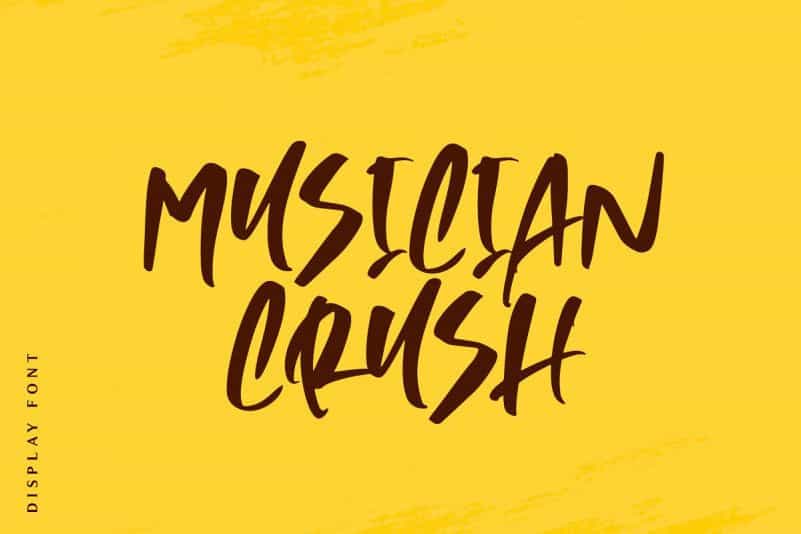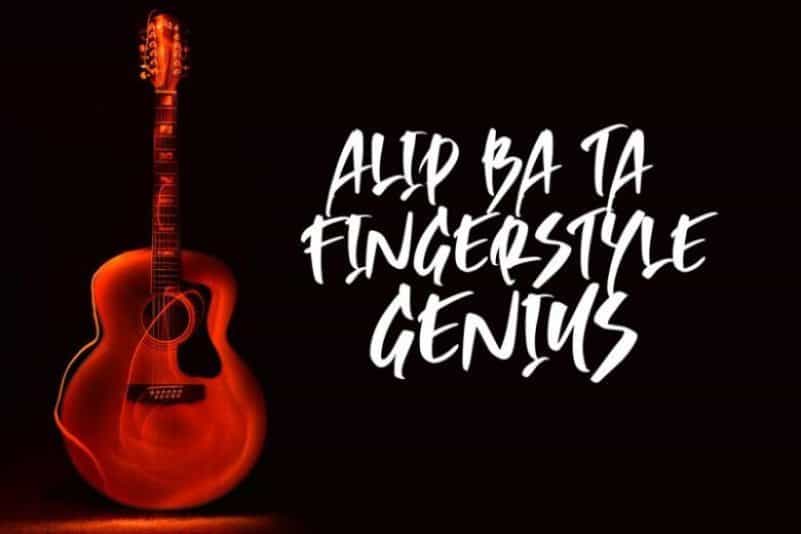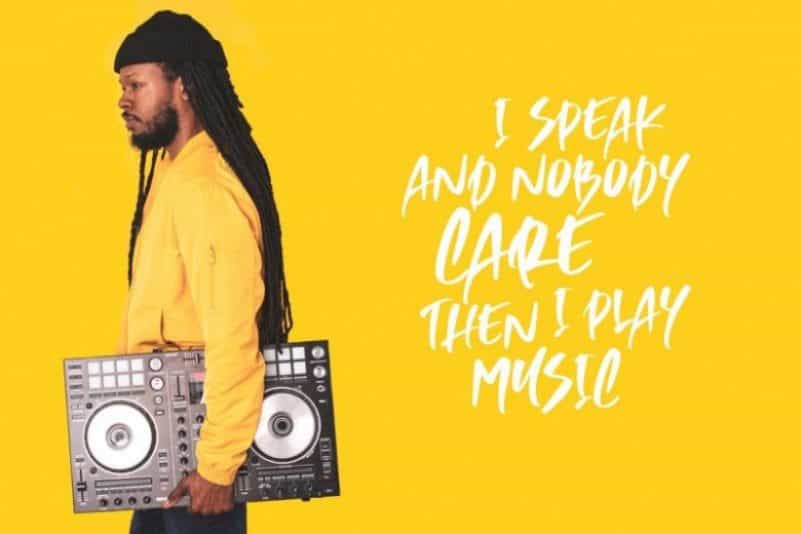
Introducing Musician Crush Script Font. It is created and uploaded by Motokiwo. It is a colorful and appealing display typeface with urban influence. This typeface is bold to give prominence over your design project.